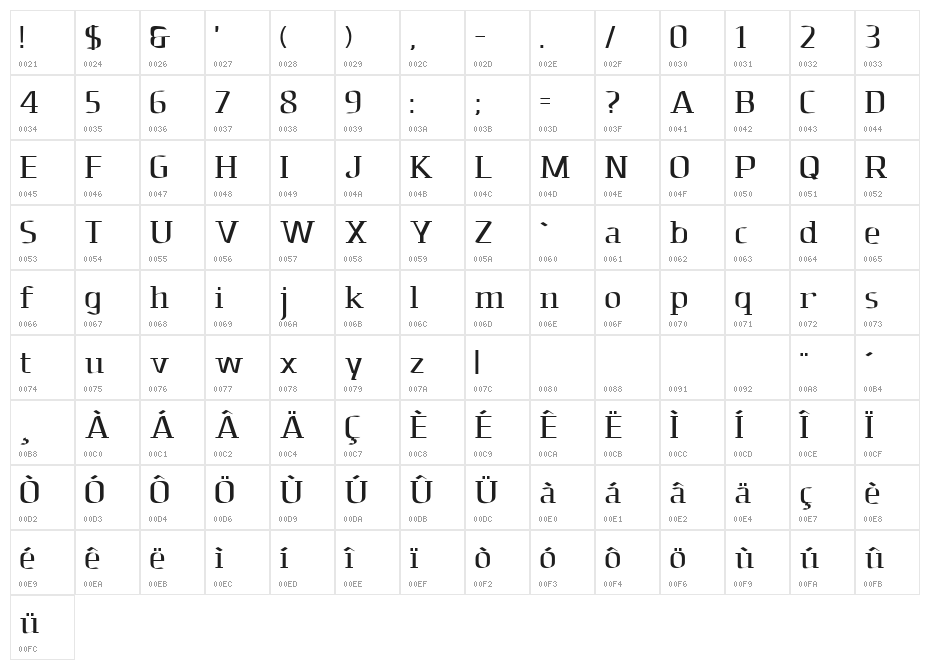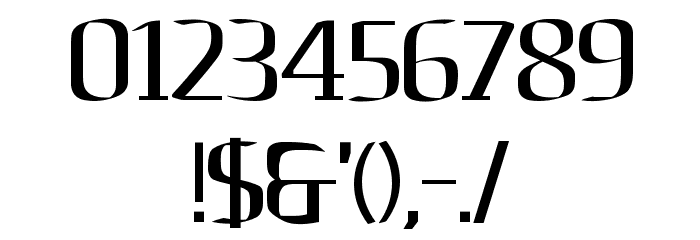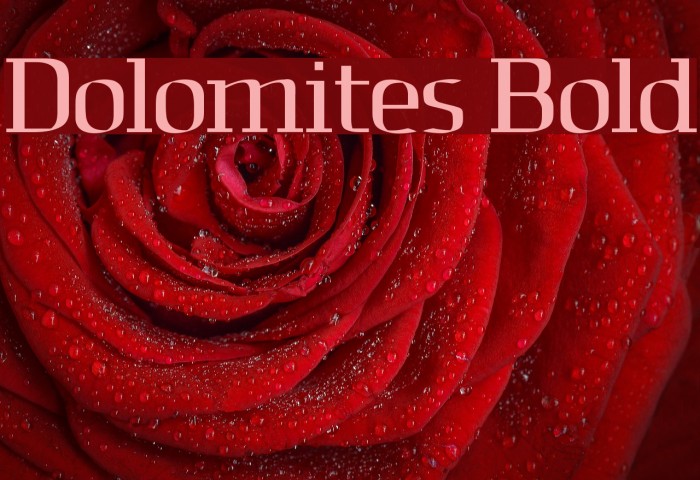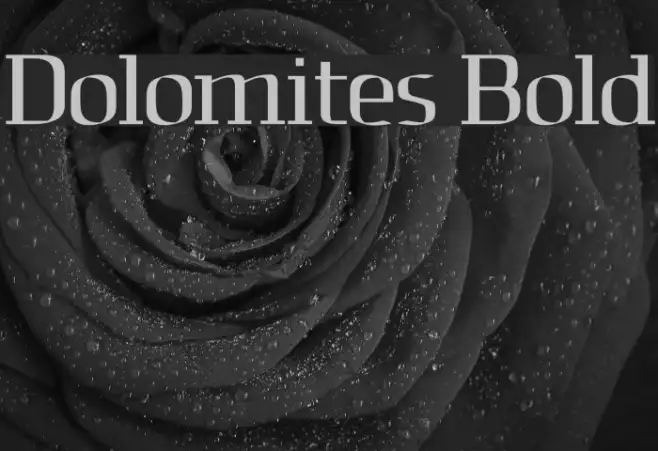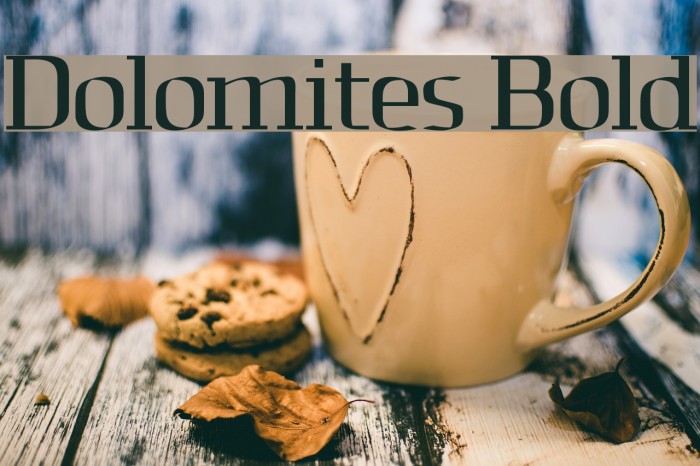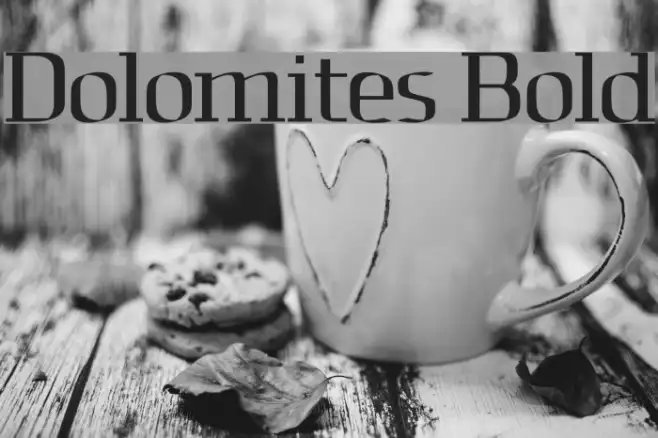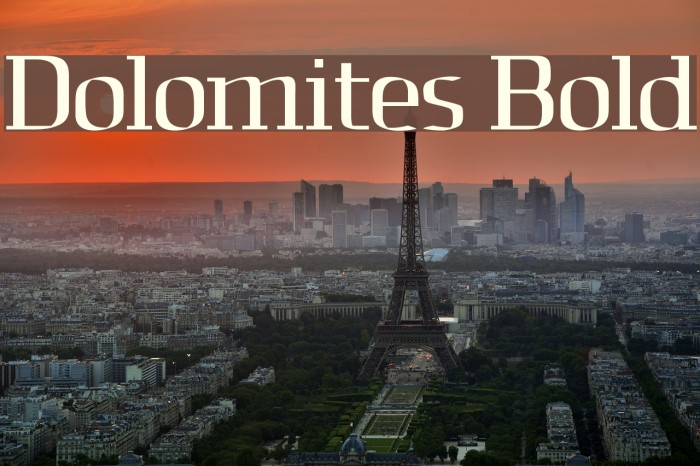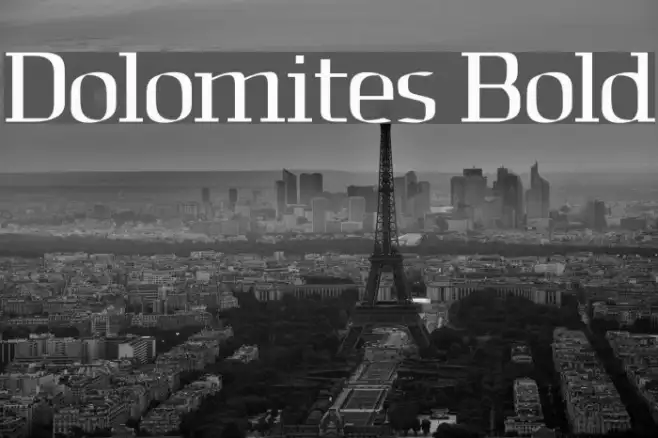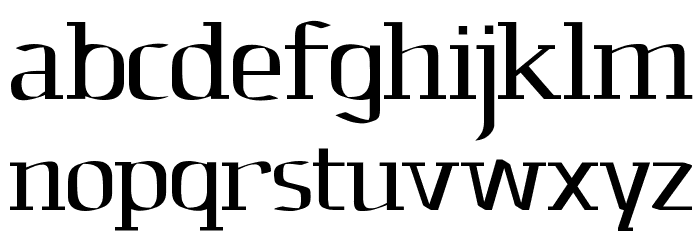
Dolomites Bold Font
Dolomites Bold Description
This font features a bold and striking design with strong, angular serifs that give it a distinctive and authoritative appearance. The uppercase letters are tall and commanding, while the lowercase letters maintain a consistent style with slightly rounded edges that soften the overall look. The numerals are clear and easy to read, making them suitable for a variety of applications. Special characters are well-integrated, ensuring versatility in usage. The font's design is both modern and classic, making it suitable for a wide range of projects.
| Overall Style | Modern, Classic |
| Use Case | Headlines, Logos, Branding |
| Proposed Projects | Ideal for headlines, branding, posters, and editorial design where a strong and authoritative presence is desired. |